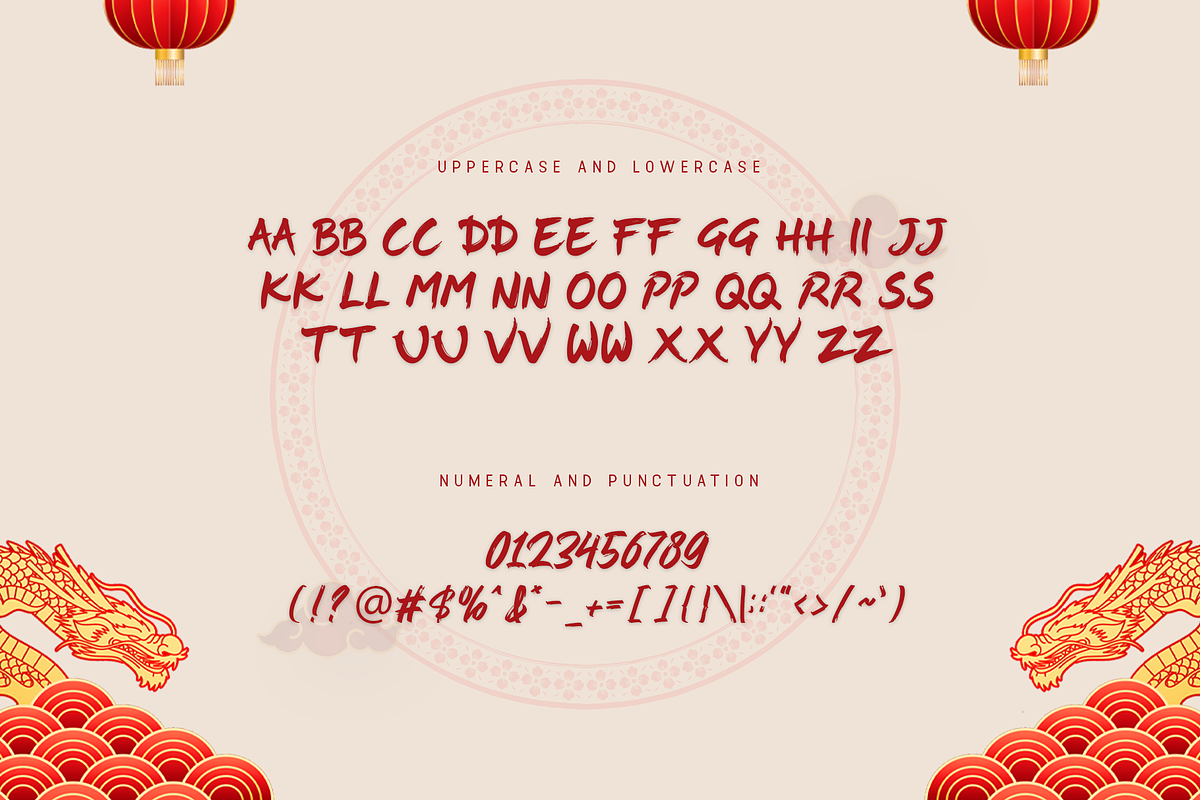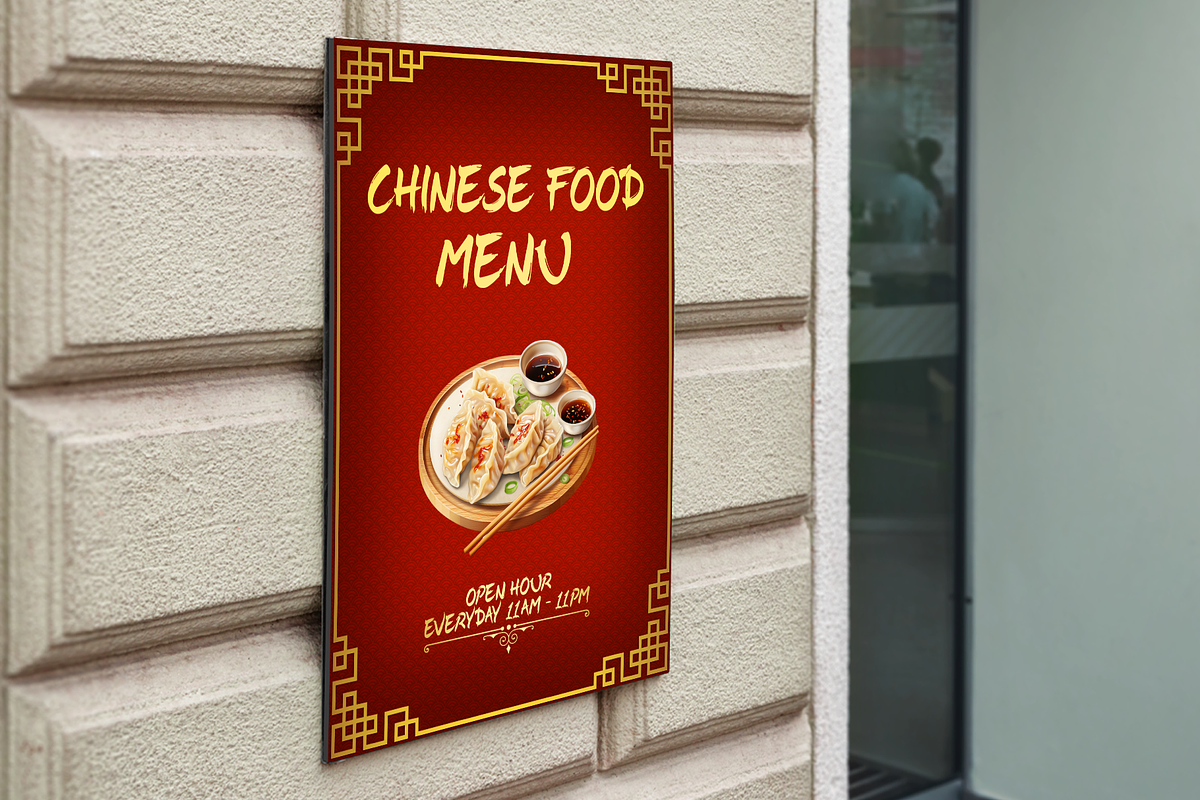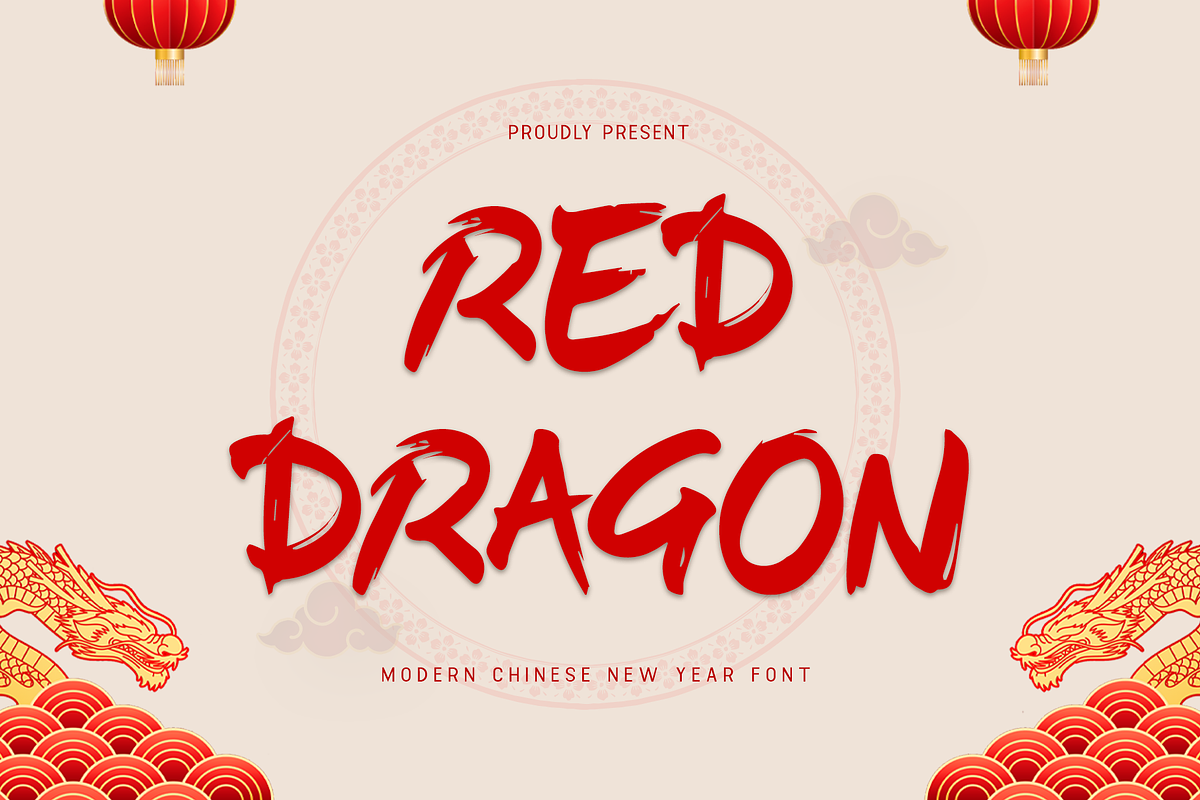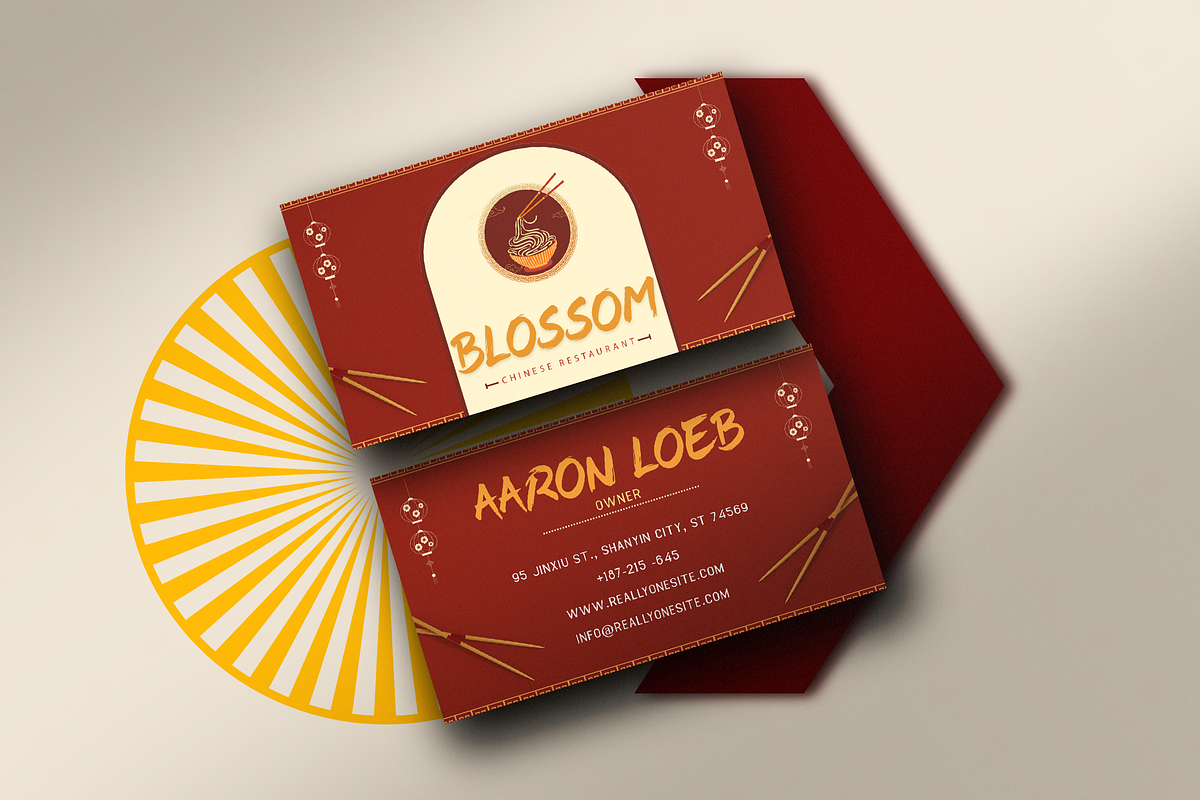
Red Dragon - Modern Chinese New Year
Red Dragon - A Modern Chinese New Year Font
Embrace the spirit of the Red Dragon, a modern font designed to capture the vibrant energy and majesty of Chinese New Year. This font combines traditional Chinese influences with contemporary design, making it the perfect choice for creating striking and festive visuals.
Red Dragon brings strength and elegance to your designs, with its bold, sharp lines and fluid curves. Inspired by the dynamic movement of the dragon, this font is ideal for Chinese New Year invitations, event posters, branding, and festive promotional materials. It evokes prosperity, fortune, and celebration, embodying the essence of the Lunar New Year festivities.
With a full character set, multilingual support, and a sleek, modern aesthetic, Red Dragon offers versatility for various design projects. Whether you're creating vibrant social media posts or designing an eye-catching logo, this font ensures your designs stand out with its powerful yet stylish flair.